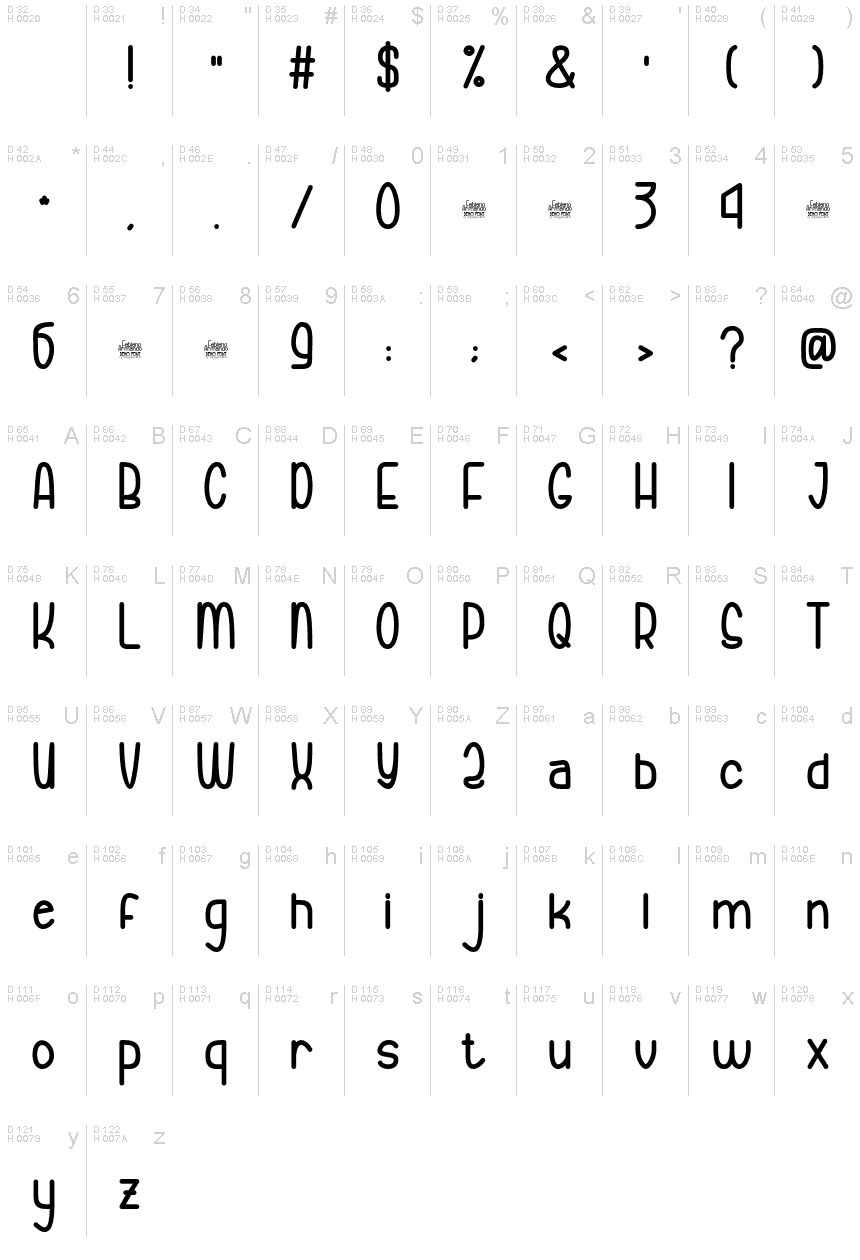
Fabiano Armando Semi Bold
Fabiano Armando Semi Bold is a striking member of the Fabiano Armando font family, meticulously crafted by bringtypestudio.co. This semi-bold handwritten font boasts an aesthetic that balances personality with elegance, making it an excellent choice for designers looking to infuse a sense of individuality and flair into their projects.
The font's handwritten style exudes a natural and approachable charm, while its semi-bold weight adds just the right amount of emphasis without overwhelming the text. The smooth curves and clean lines present in this typeface give it a modern vibe that is both refreshing and engaging.
Whether you're creating branding materials, invitations, or compelling graphic art, Fabiano Armando Semi Bold adapts effortlessly to various design contexts. Its legibility and distinctive character make it suitable for both digital media and print, ensuring your message stands out with grace and style.